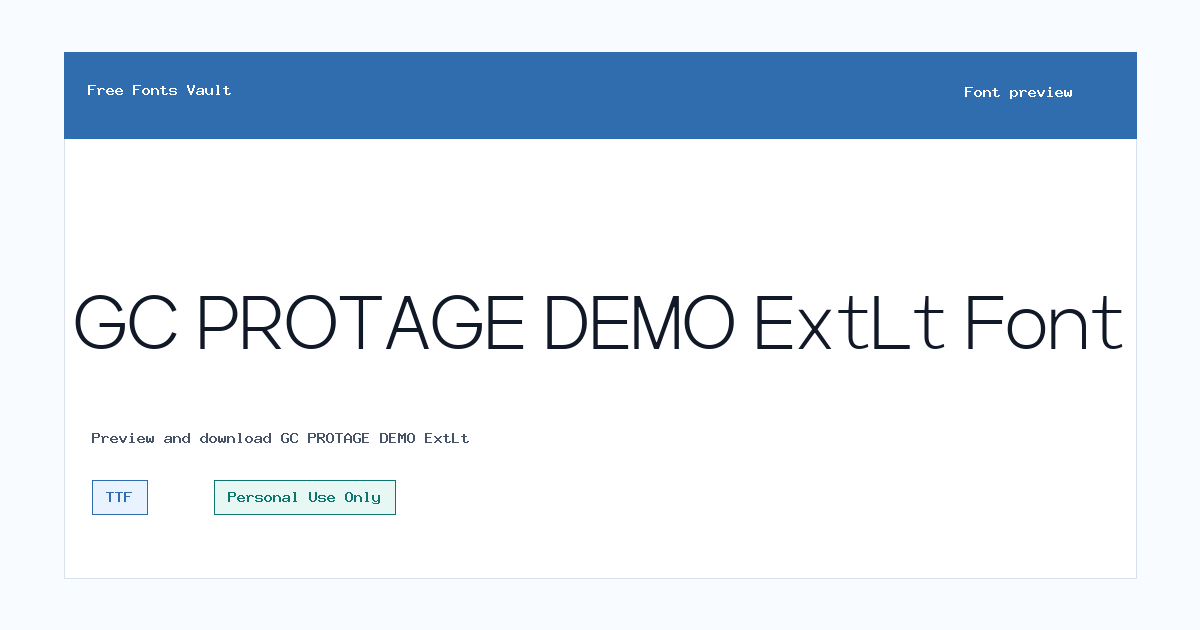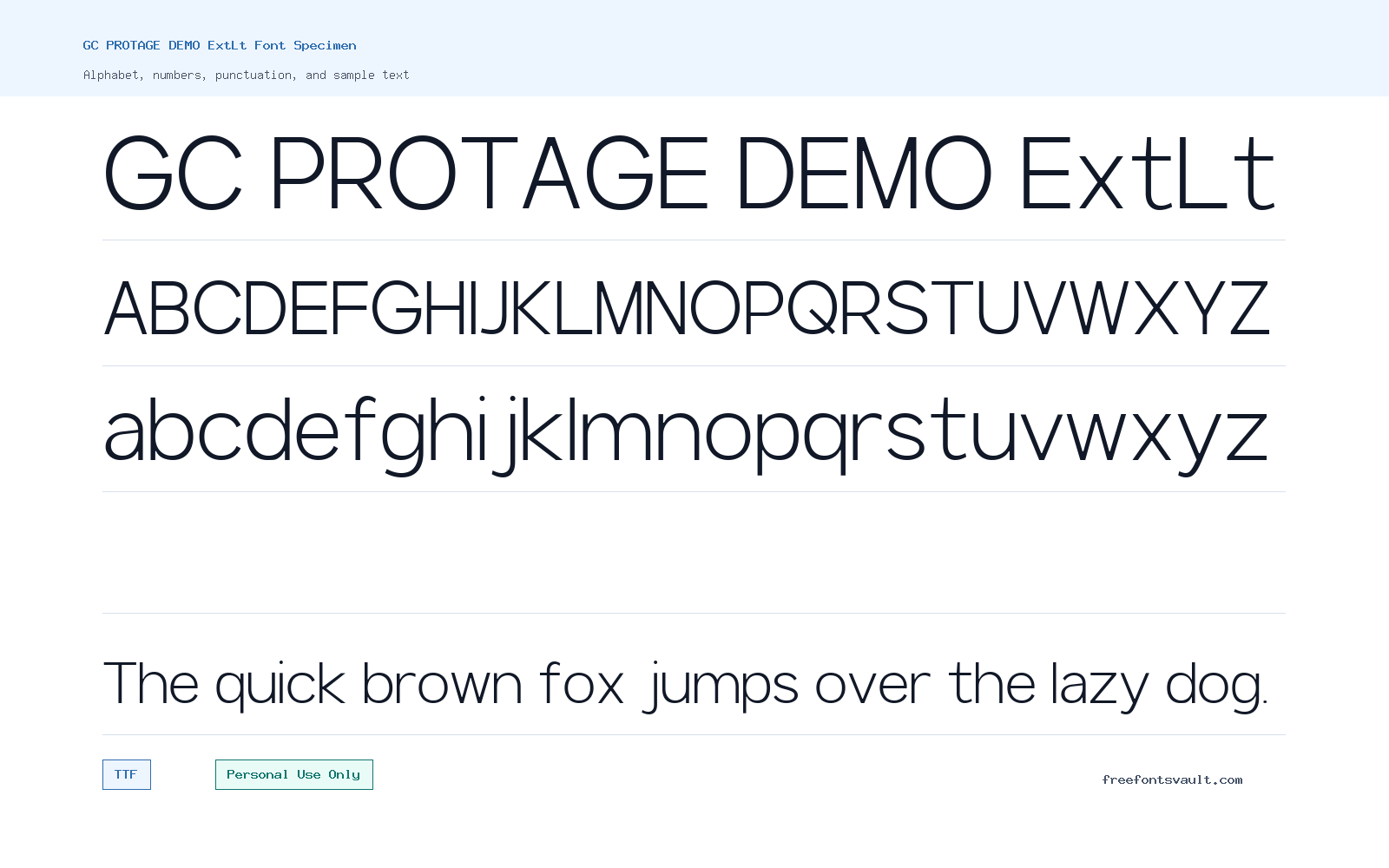
GC PROTAGE DEMO ExtLt
• Designer Dwi Indah Fadhilatul Amanah of Glyphonic
• Foundry Glyphonic
GC PROTAGE DEMO ExtLt is an extra-light weight from the GC Protage Sans Serif Font Family. It is a personal-use demo font in TTF format, suited for testing clean, light typography in titles, layout drafts, and visual mockups.
About GC PROTAGE DEMO ExtLt
GC PROTAGE DEMO ExtLt gives you the thinnest, airiest role in the GC Protage family shown on this page. Its extra-light weight keeps the letterforms quiet and open, making it more useful for display settings than for dense reading. Designers can use it to test a refined sans serif look in large headings, editorial-style covers, social graphics, portfolio layouts, and brand concept boards where a light typographic tone is needed.
Because this is a light-weight demo style, preview it at the size you plan to use before downloading. Thin strokes can look elegant in large text, but they may lose strength in small captions, low-resolution images, or busy backgrounds. Try it with short words, generous spacing, and high contrast between text and background. If you are testing a full identity or website direction, use this weight for top-level titles or quiet accent text, then pair it with a sturdier sans serif for paragraphs, buttons, menus, and other functional copy.
• Extra-light weight from the GC Protage Sans Serif Font Family
• Large headings, posters, covers, and elegant short text treatments
• Personal design mockups, portfolio concepts, social graphics, and typography previews
The font is credited to Dwi Indah Fadhilatul Amanah of Glyphonic, with Glyphonic listed as the foundry.
For best results, use GC PROTAGE DEMO ExtLt in large sizes where the extra-light strokes can stay clear. Avoid placing it over detailed photos unless you add enough contrast. If you need body text, UI labels, or long paragraphs, test a heavier companion font instead, because very light weights can become tiring to read at small sizes.
What kind of font is GC PROTAGE DEMO ExtLt?
It is an extra-light sans serif demo font from the GC Protage family. The file on this page is a TTF font with a normal style and a 300 weight setting.
What is the best way to use this extra-light weight?
Use it for short, spacious text such as large titles, cover lines, posters, social posts, and presentation mockups. Keep the background simple and the contrast high so the thin strokes remain readable.
Can I use GC PROTAGE DEMO ExtLt for body text?
It may work for brief accent text at larger sizes, but it is not the safest choice for long paragraphs. Extra-light fonts can become hard to read when used small, especially on screens or textured backgrounds.
Who designed GC PROTAGE DEMO ExtLt?
The font is credited to Dwi Indah Fadhilatul Amanah of Glyphonic.